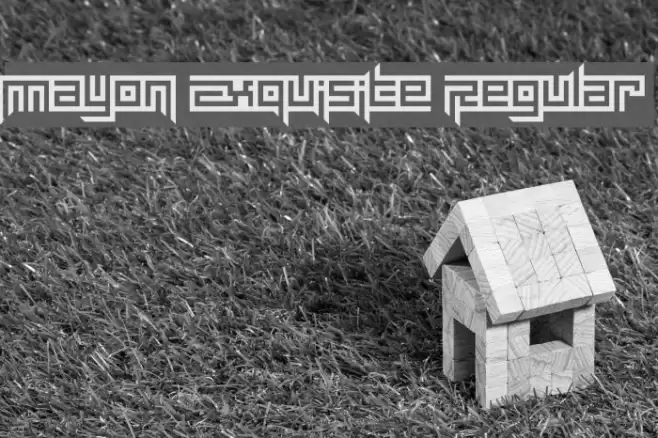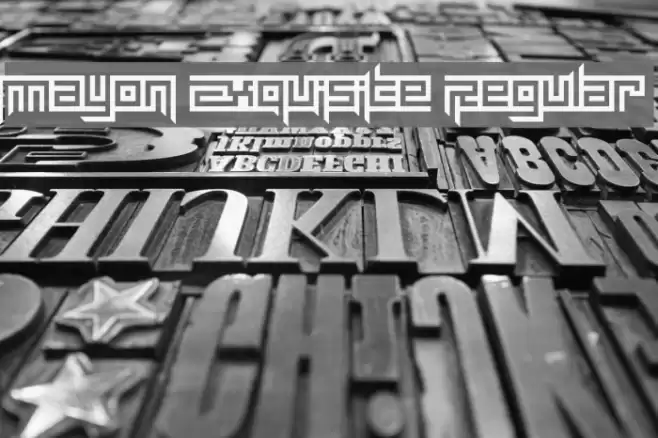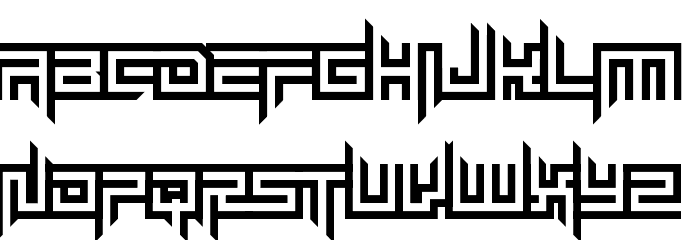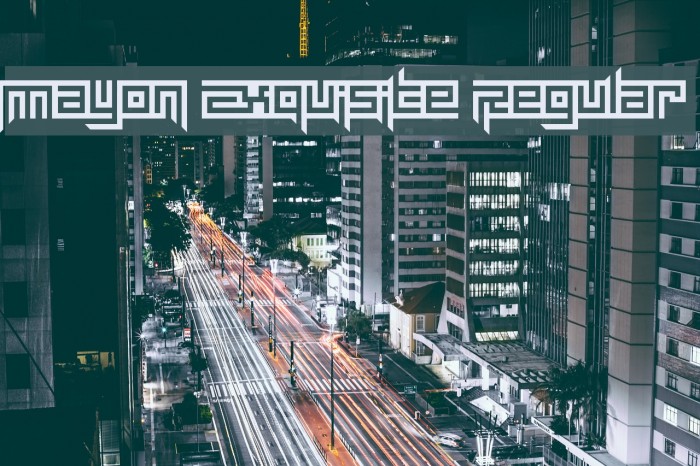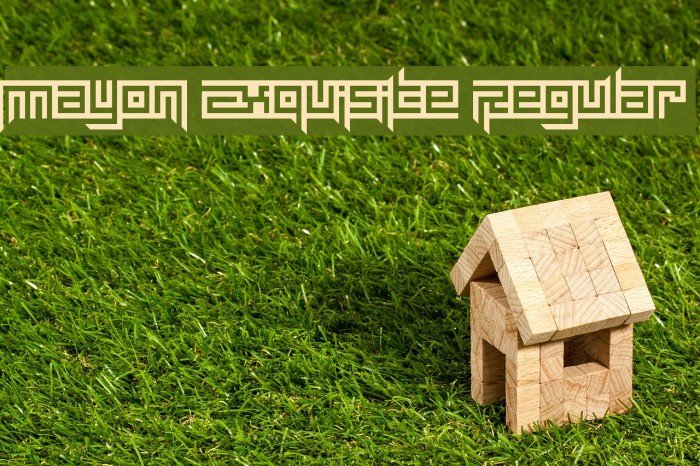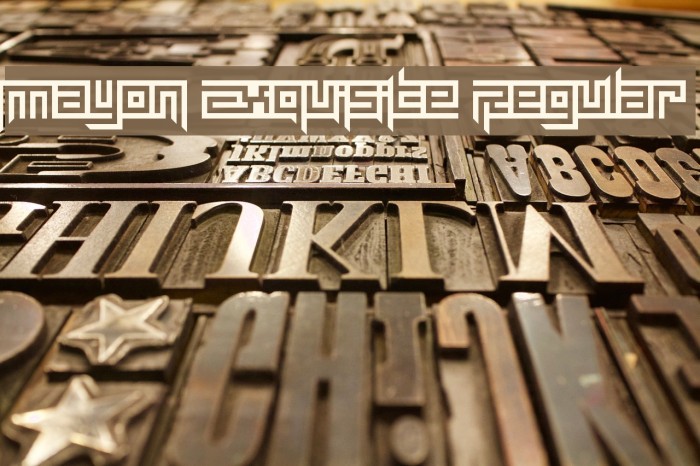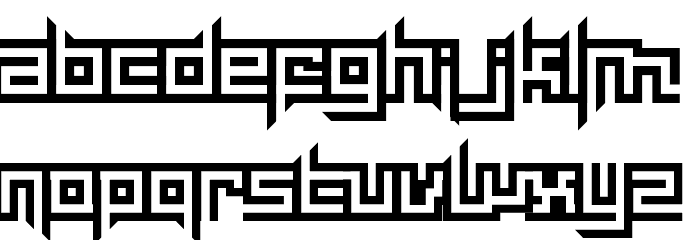
Mayon Exquisite Regular Font
Mayon Exquisite Regular Description
This font features a bold, geometric design with sharp angles and a futuristic aesthetic. The characters are constructed with thick, uniform lines that create a sense of strength and modernity. Each letter is distinct, with angular edges and a consistent height, giving the font a cohesive appearance. The uppercase and lowercase letters maintain a similar style, enhancing readability while preserving the unique design. The numerals and special characters follow the same geometric pattern, ensuring uniformity across all elements. This font's striking appearance makes it ideal for projects that require a modern and edgy look.
A bold, geometric font with sharp angles and a futuristic style from Uncategorized fonts.